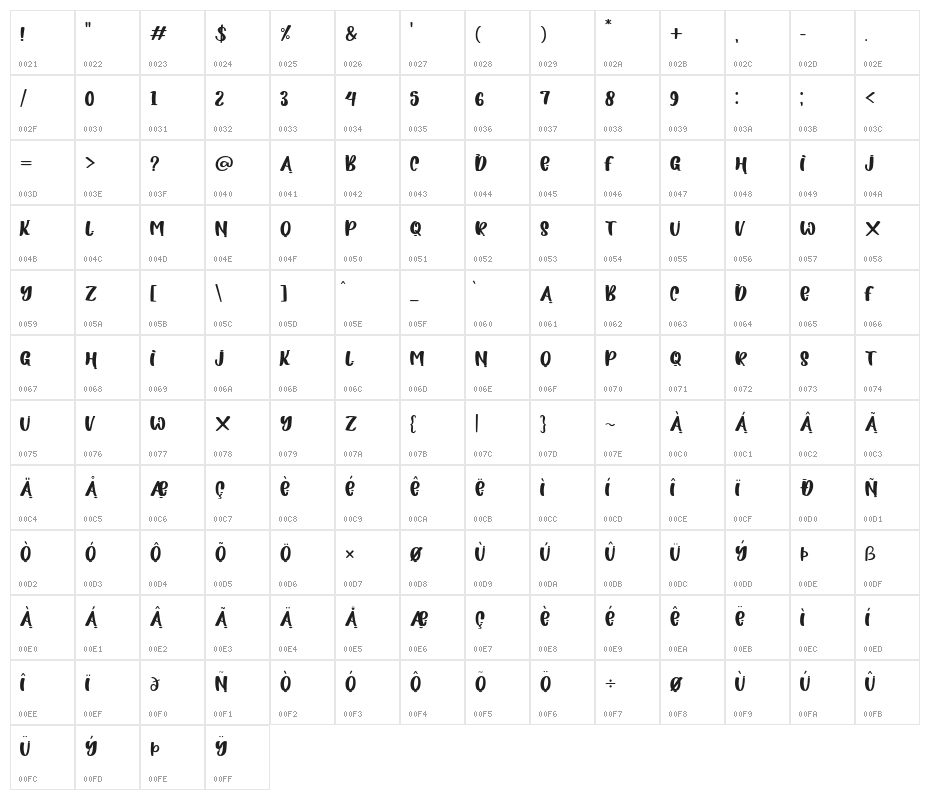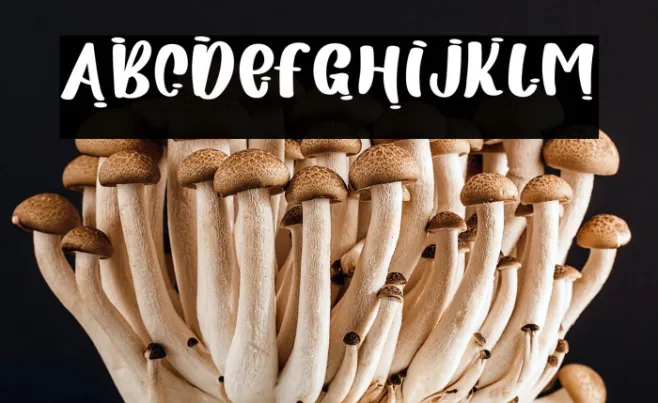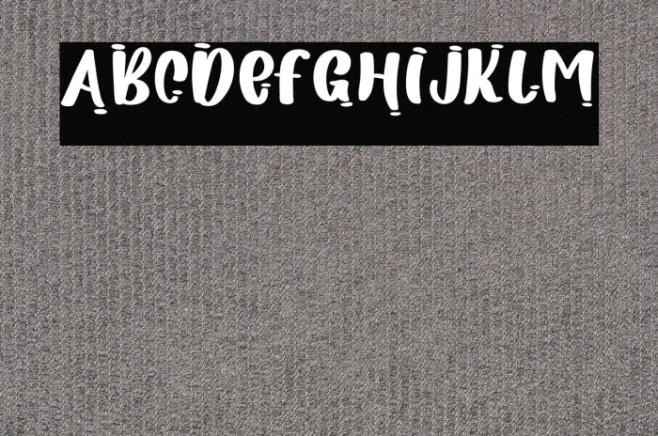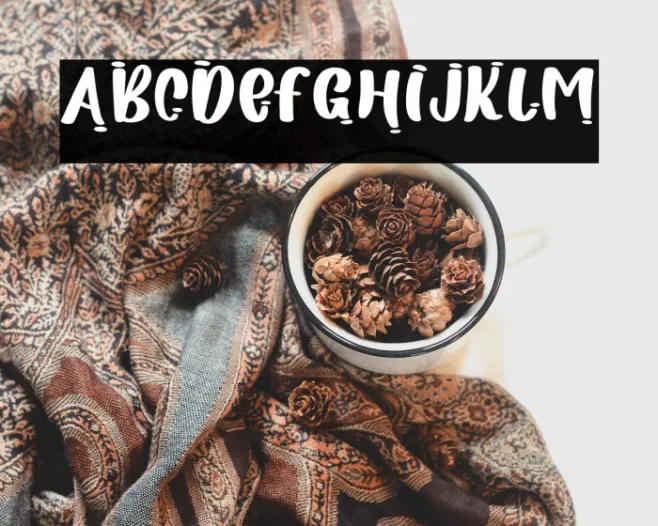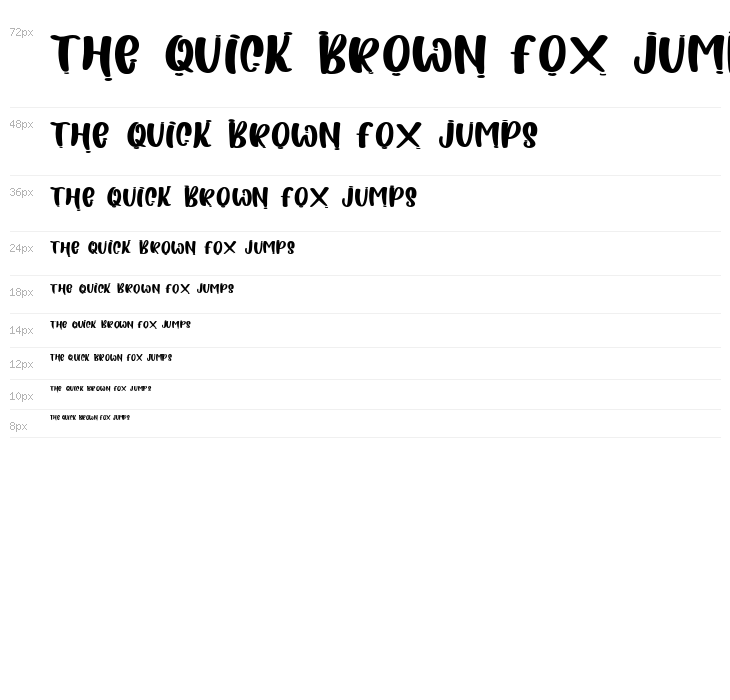
Power Dream Font
Power Dream Description
This font features a bold and playful design with a handwritten style that exudes a sense of fun and creativity. The characters are thick and rounded, with a slight slant that adds a dynamic feel. The strokes are consistent in weight, giving the font a cohesive look. The uppercase and lowercase letters maintain a uniform appearance, while the numerals and special characters complement the overall style. The font's whimsical nature makes it suitable for projects that aim to convey a lighthearted and approachable tone.
| Proposed Projects | Ideal for children's books, playful branding, greeting cards, and creative posters. |